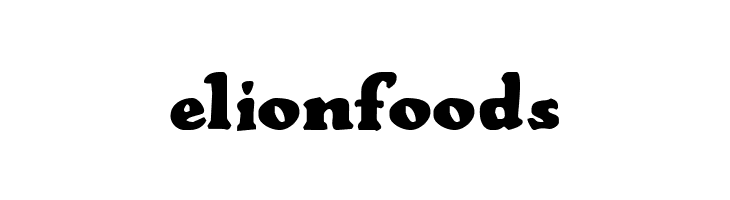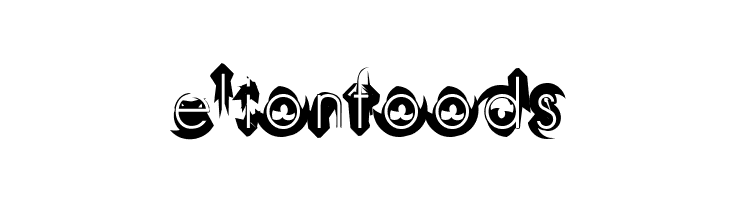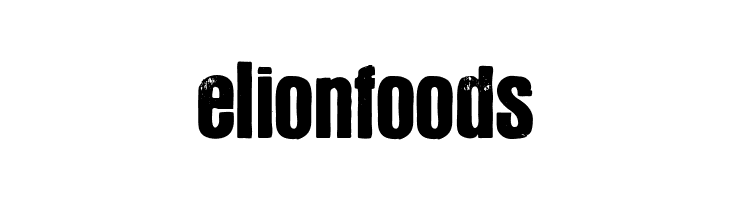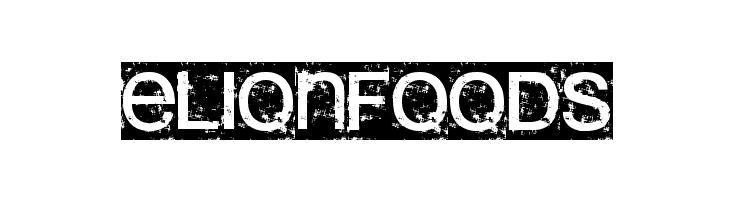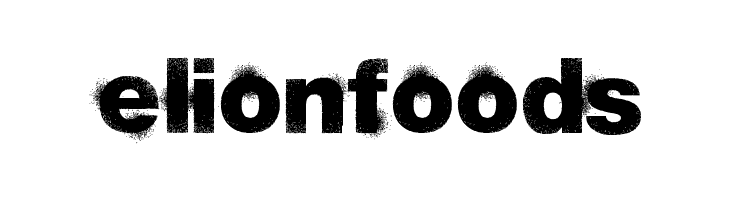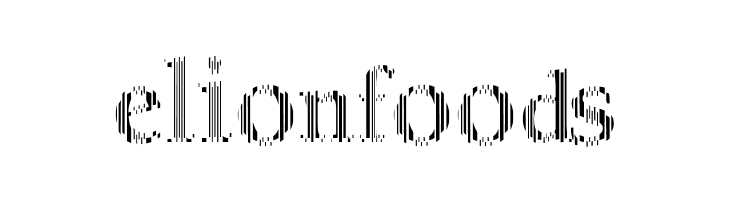
A bold, playful font with rounded, hand-crafted characters.
A bold, dynamic font with angular strokes and a futuristic style.
A bold, distressed font with a vintage, rugged texture.
A bold, distressed font with a grunge texture and vintage appeal.
A bold, distressed font with a rugged, hand-drawn appearance.
A bold, spray-painted font with a gritty, urban texture.
A playful, organic font with rounded, fluid characters and varying stroke thickness.